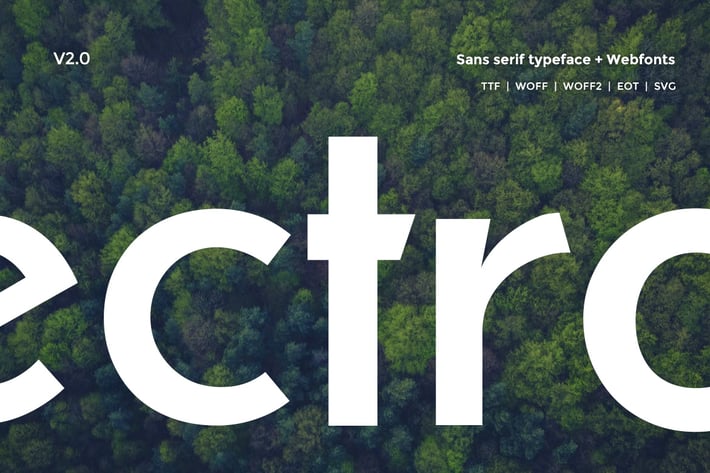
Electro Sans Typeface V2.0
Electro Sans V2.0
Electro Sans is a modern Sans Serif classic headline typeface inspired by some classic geometric typefaces that keep the minimalism at its level best. The concept of Electro Sans is based on Classic minimal typeface which was released in the 20th Century, but we have added Modern Styles and concentration to the details. Electro will be best suited for creating perfect looking headlines that you can always find in fashion web stores and minimal portfolio websites.